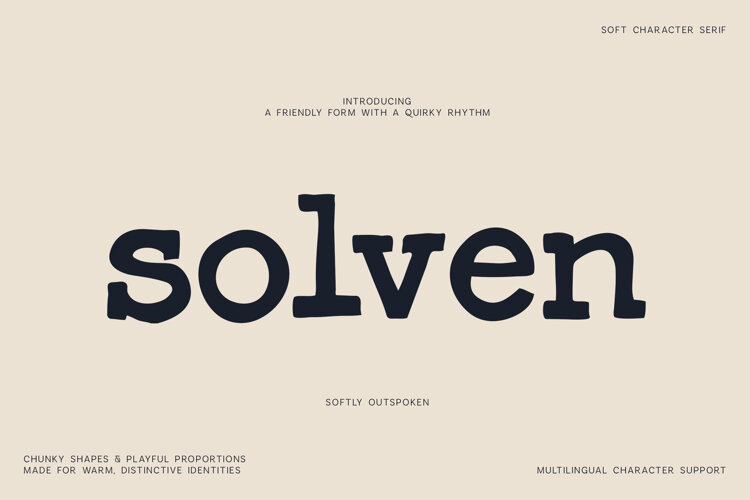
Meet Solven, a soft and expressive serif font with chunky shapes, playful proportions, and an unmistakable personality.
Its organic letterforms balance friendliness with visual impact, making Solven ideal for designs that need to feel warm, distinctive, and memorable. The slightly unconventional shapes make headlines and identities stand out without sacrificing readability.
The font includes uppercase and lowercase letters, numerals, punctuation, symbols, and extended multilingual character support.